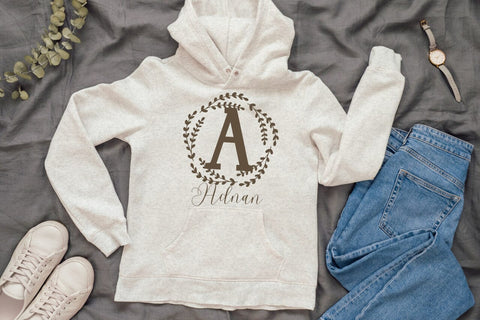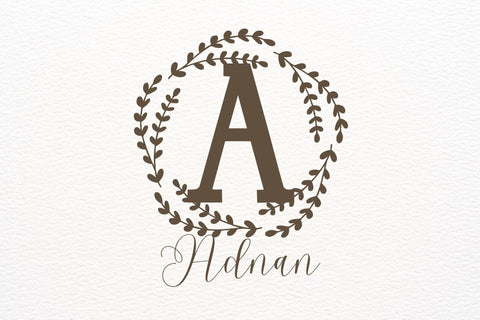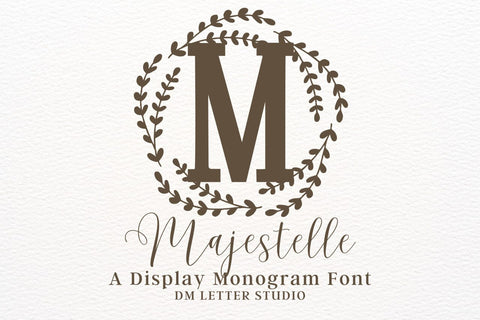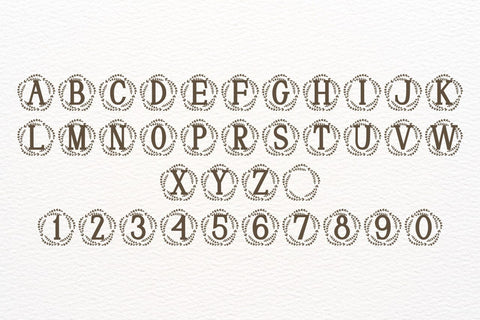
Majestelle Monogram Font
Meet Majestelle, the Monogram Font
Majestelle Monogram Font turns simple initials into refined emblems. Strokes feel poised and confident, while curves stay smooth for easy readability at any size. Because counters remain open, tiny tags and foil seals still print crisp. Use it for wedding suites, boutique logos, keepsake gifts, and premium packaging. Moreover, Majestelle pairs beautifully with soft serifs or modern sans fonts, so layouts look polished with minimal effort.
Where the Monogram Font shines
Set single, double, or triple initials for logos, seals, and submarks. Then frame them with laurel rings, oval borders, or clean rules to echo the elegant structure. Since the proportions favor symmetry, compositions come together in minutes. As a result, your thumbnails stand out on crowded marketplaces and your listings stay consistent across product lines.
Fast setup, polished results
Design tips for Majestelle
Keep initials large and let white space breathe. Pair the headline monogram with a quiet serif or humanist sans for supporting text. Meanwhile, add micro shadows, a thin inner stroke, or a delicate frame for depth. Because the letterforms feel airy, metallic accents and textured papers raise perceived value. Finally, keep the copy brief so the monogram remains the hero.
Select stylistic alternates for key letters
Curves tuned for foil, letterpress, engraving, and clean vinyl cutting
Why creators choose this Monogram Font
You need elegance that reads at a glance and sells fast. Majestelle delivers. It grabs attention in thumbnails, speeds your layout process, and keeps your brand voice cohesive from invites to packaging and gifts.